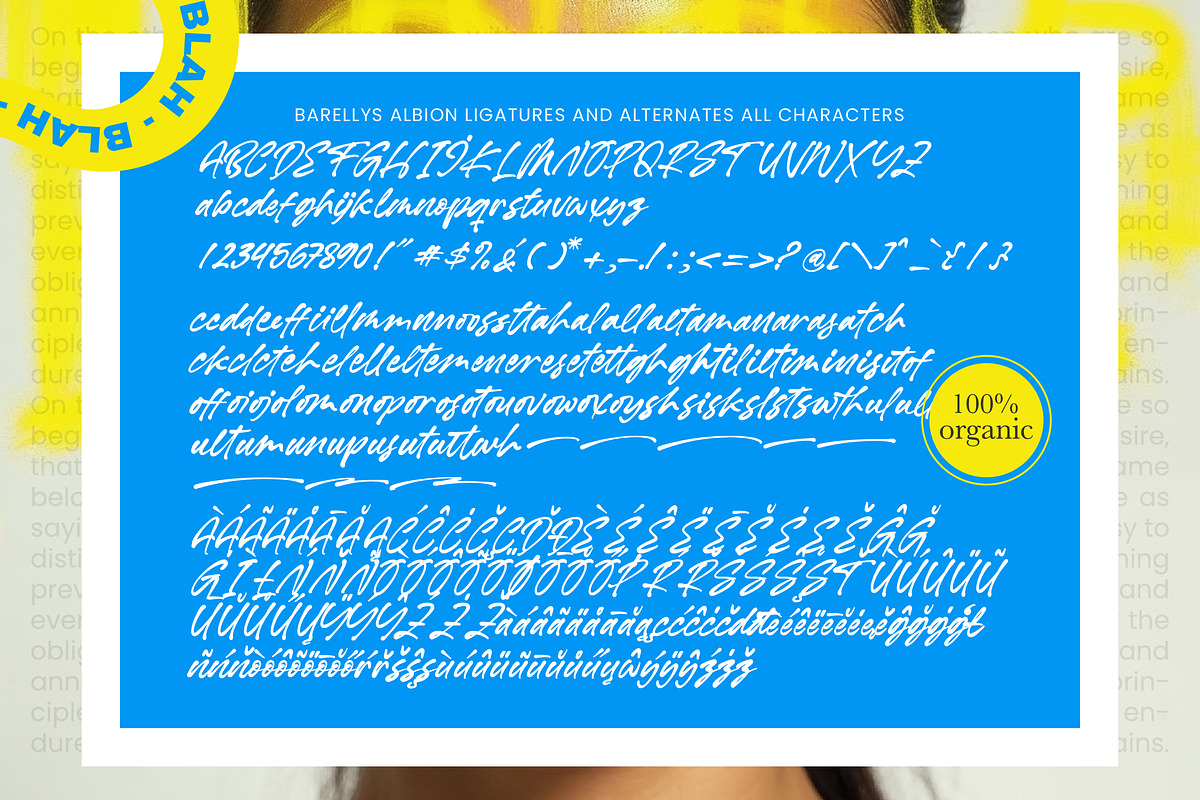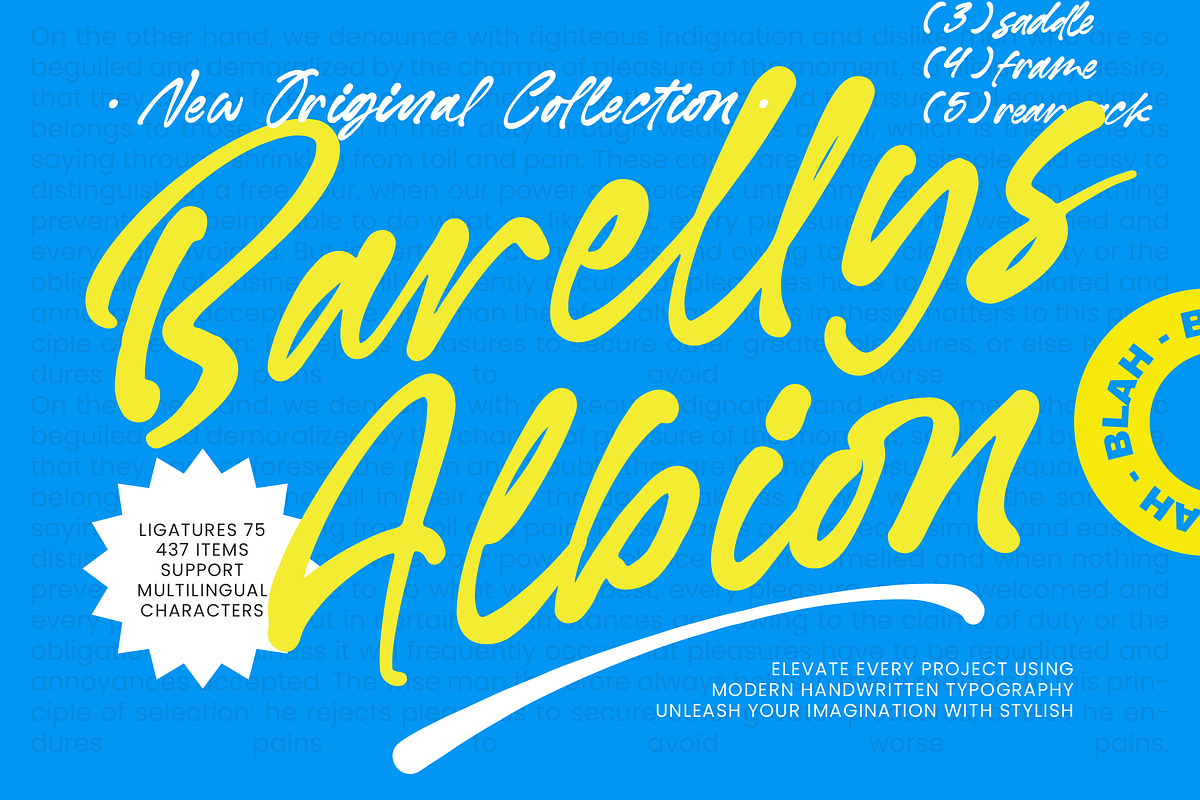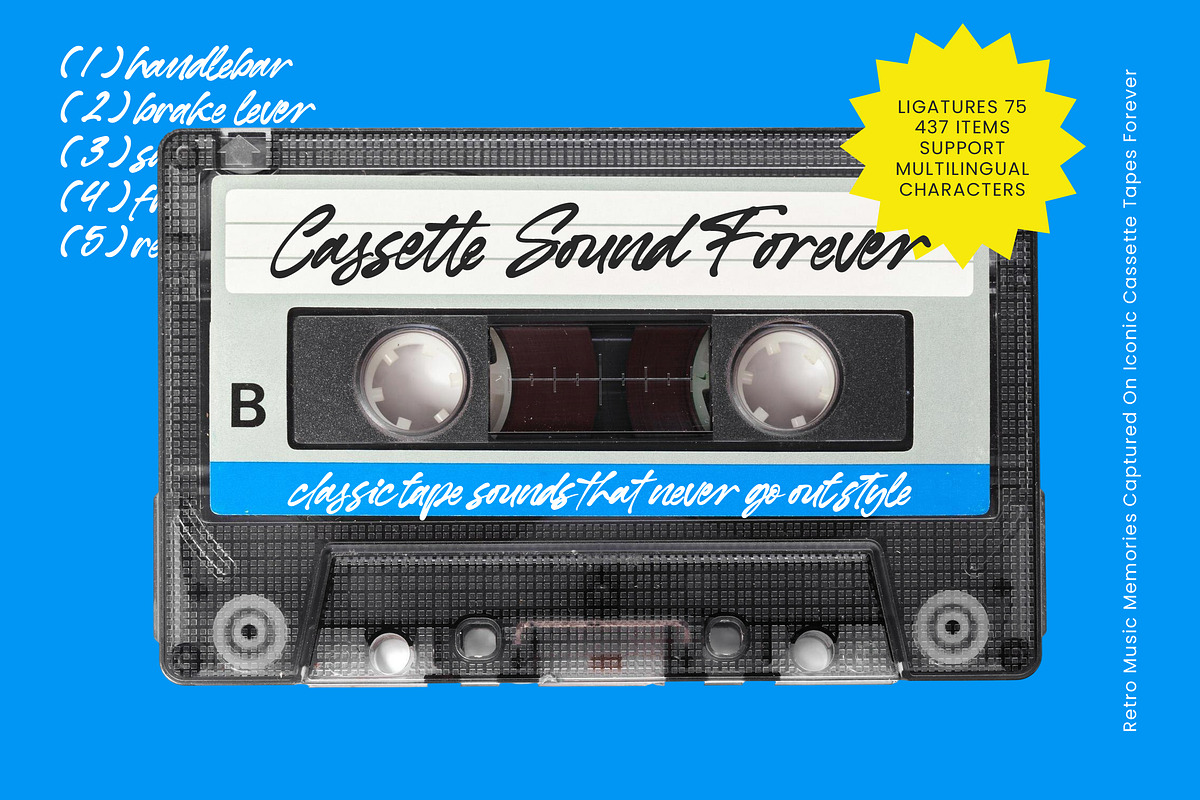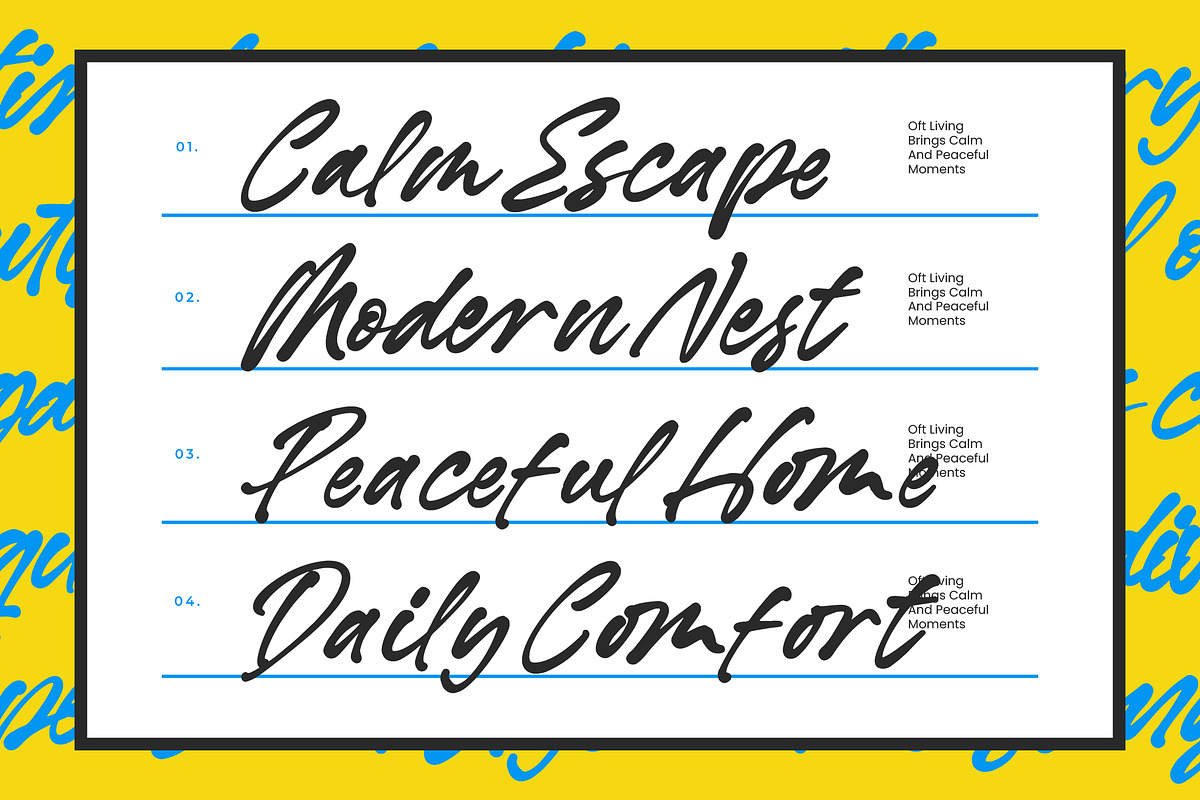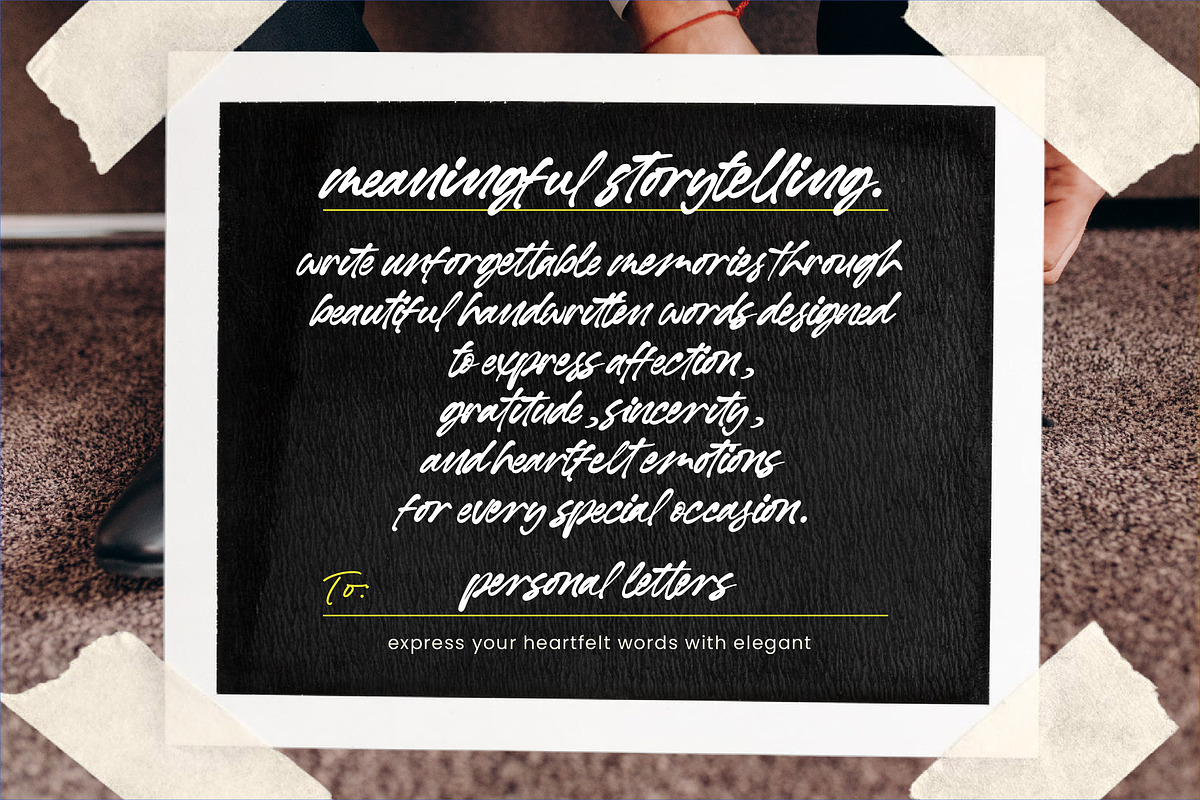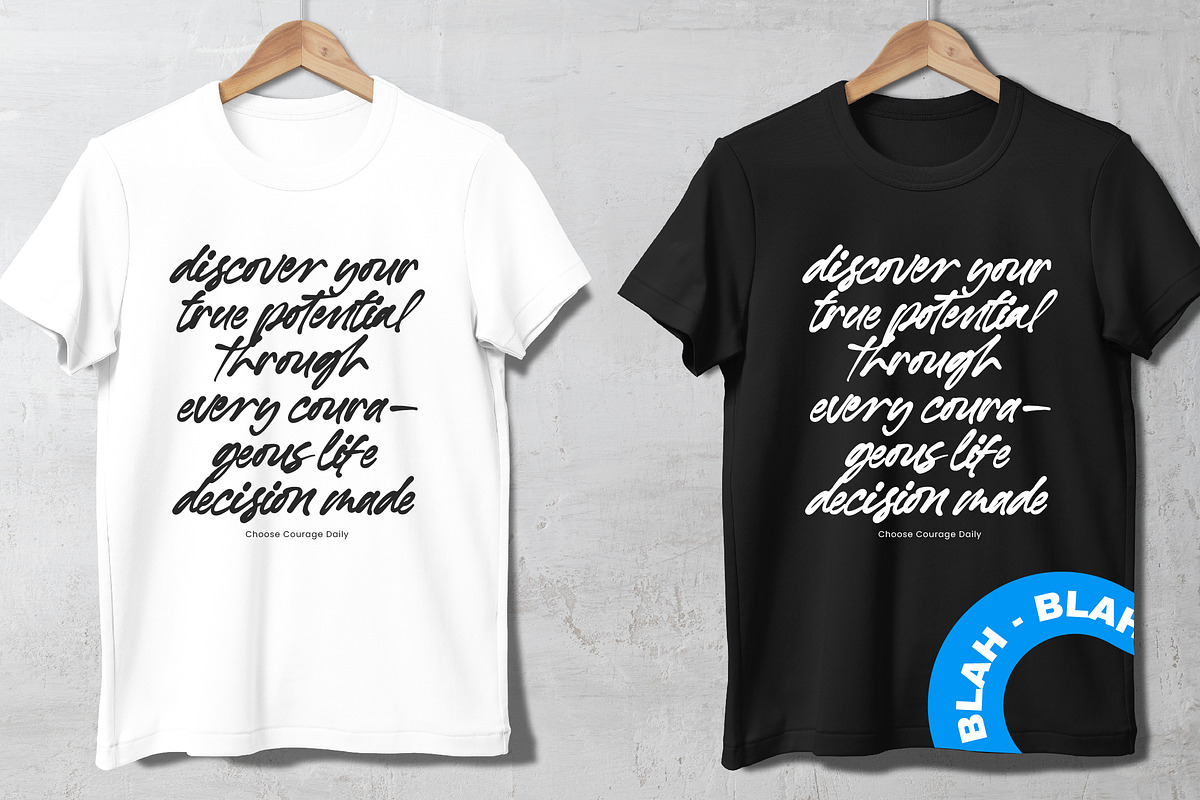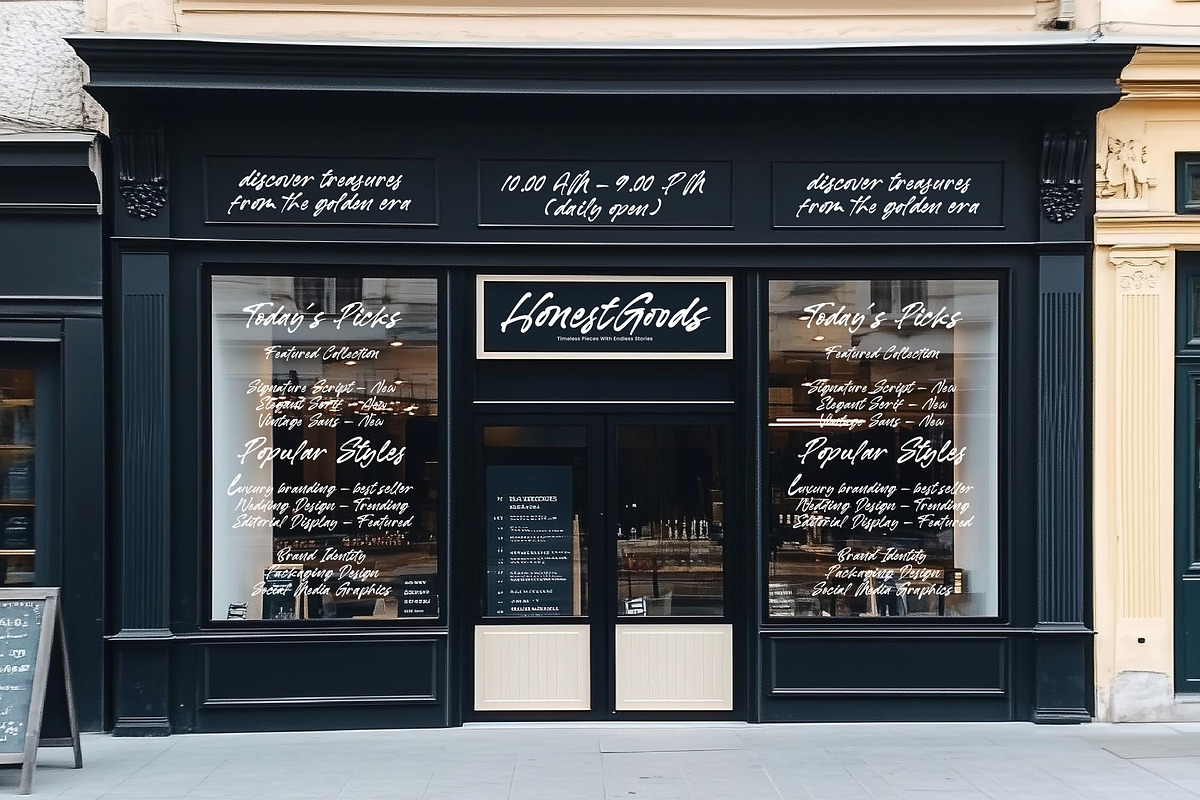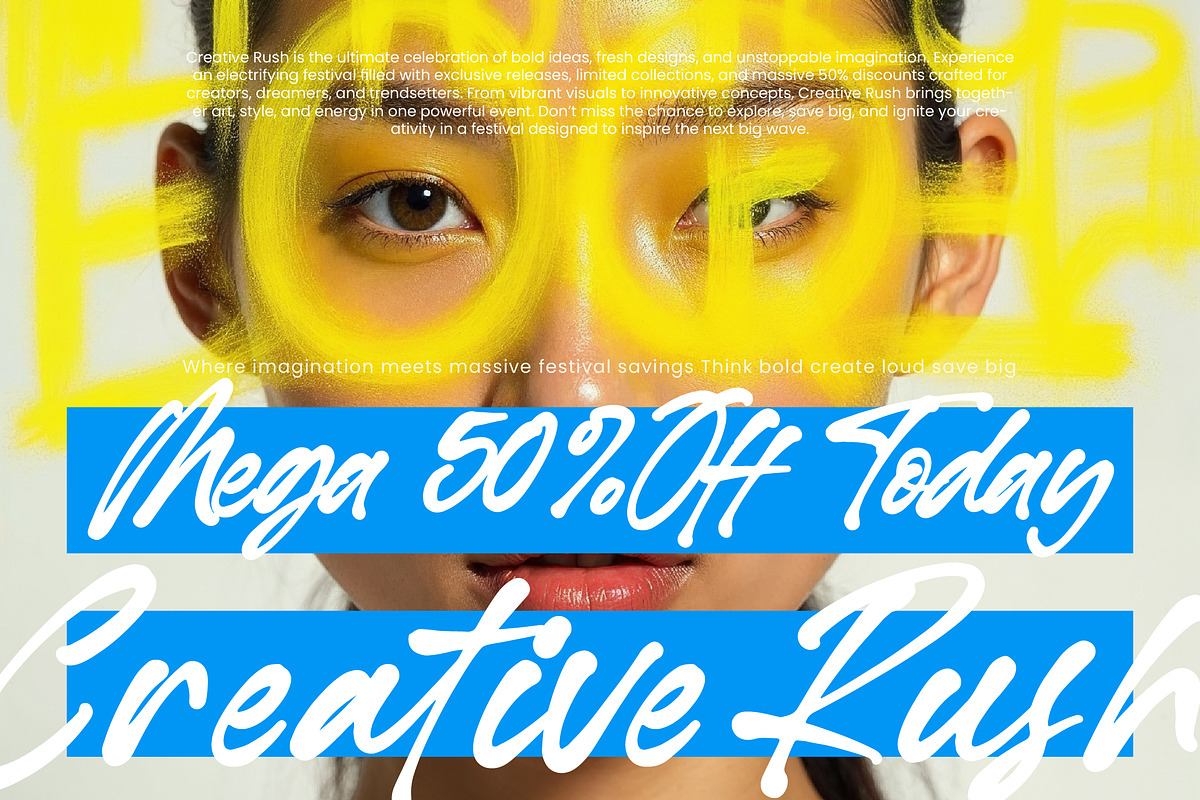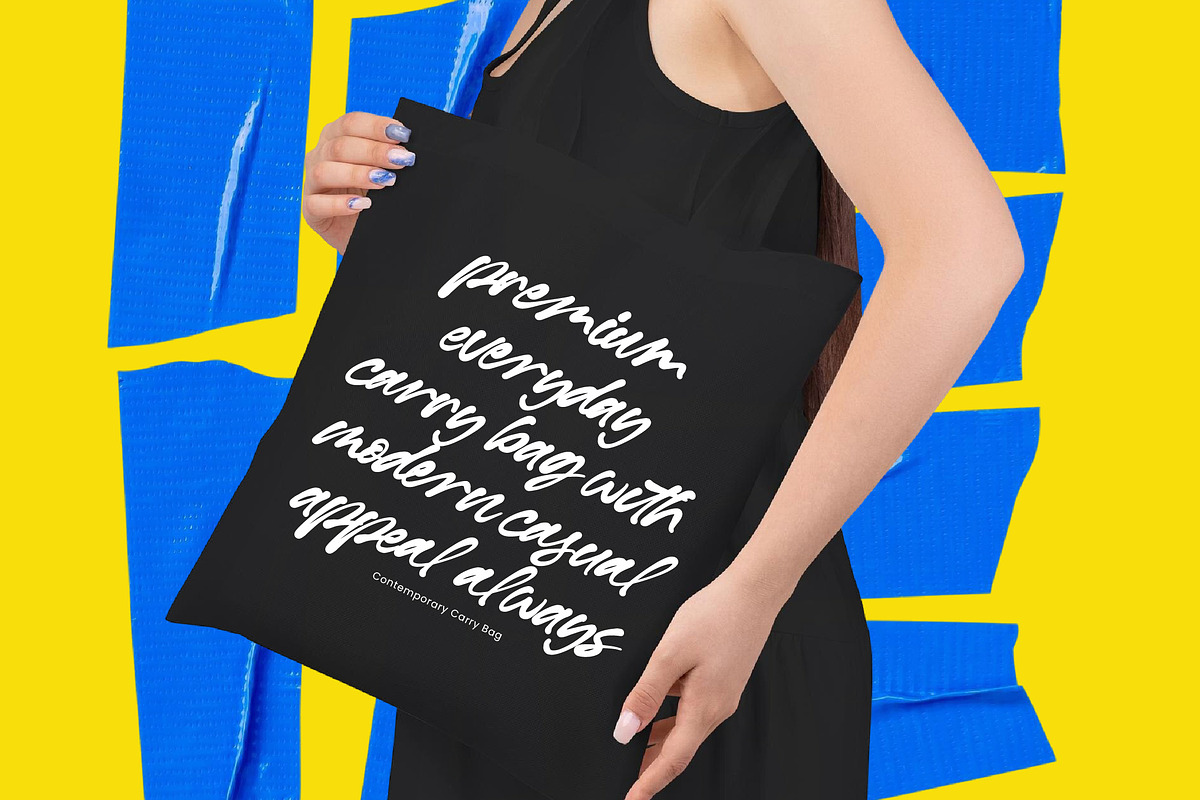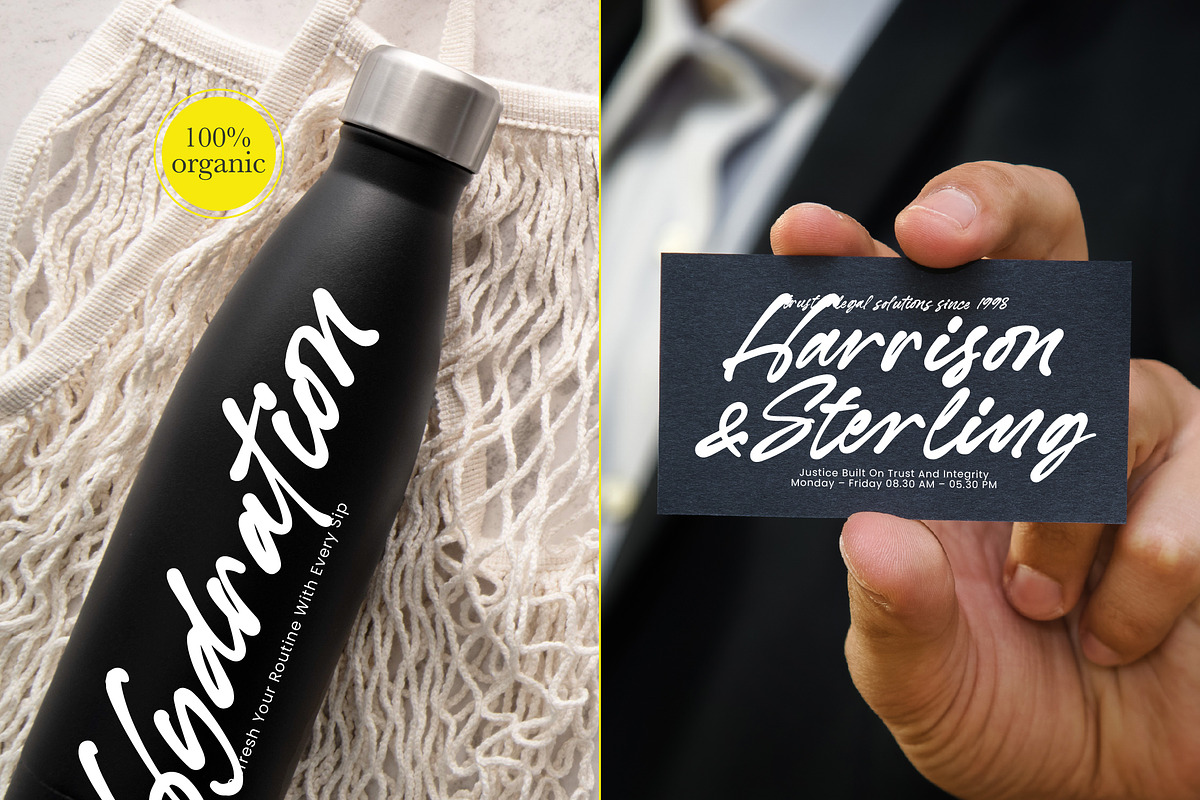
Barellys Albion Modern Handwritten
Barellys Albion - Modern Handwritten Typography
Discover the perfect harmony of organic flow and modern sophistication with Barellys Albion - Modern Handwritten Typography. This premium script typeface captures the essence of authentic brushwork, offering a dynamic aesthetic that breathes life into any creative composition. Whether you are aiming for a bold statement or a refined signature style, this font provides the visual impact necessary to stand out in a crowded marketplace through its energetic movement and handcrafted charm.
Elevate your creative projects to new heights by utilizing this font for luxury branding, bespoke packaging, and high-end editorial design. Barellys Albion - Modern Handwritten Typography is perfectly suited for lifestyle magazines, social media marketing, and exclusive event invitations where a personal touch is paramount. Its versatile nature ensures it functions beautifully across both print and digital platforms, maintaining its visual integrity and premium feel at any scale.
Experience a professional-grade toolkit designed to streamline your workflow with 75 custom ligatures and over 437 unique items. With its extensive multilingual support, Barellys Albion - Modern Handwritten Typography adapts seamlessly across global markets, making it incredibly versatile for international projects. This technical robustness guarantees that your message remains legible and stylish, regardless of the linguistic requirements or the geographic reach of your diverse audience.
Transform ordinary layouts into compelling brand stories that resonate with modern consumers seeking authenticity. Investing in Barellys Albion - Modern Handwritten Typography means securing a timeless design asset that balances artistic expression with commercial viability. Secure this essential typography today to ensure your visual identity remains innovative, professional, and instantly memorable across all marketing channels.